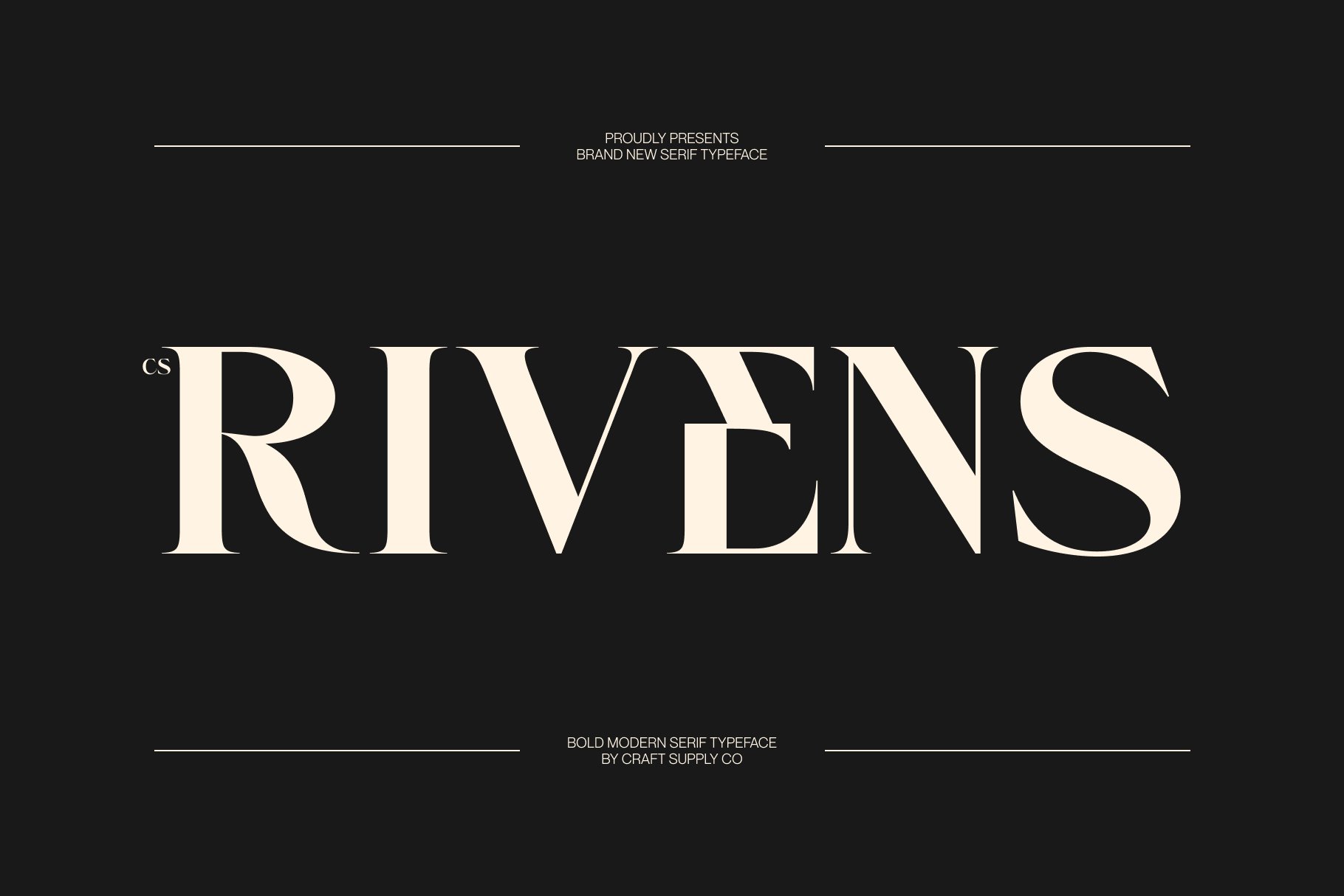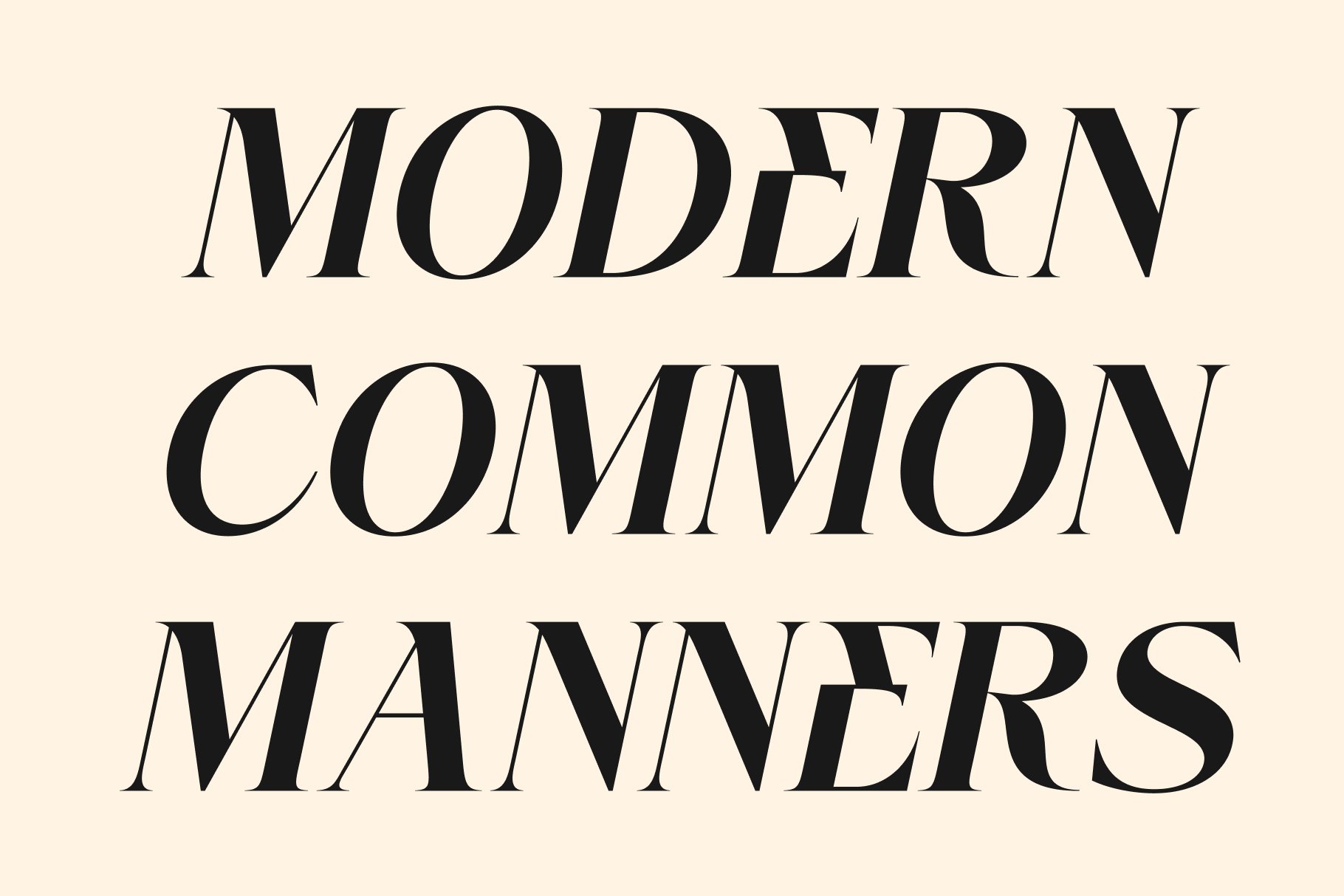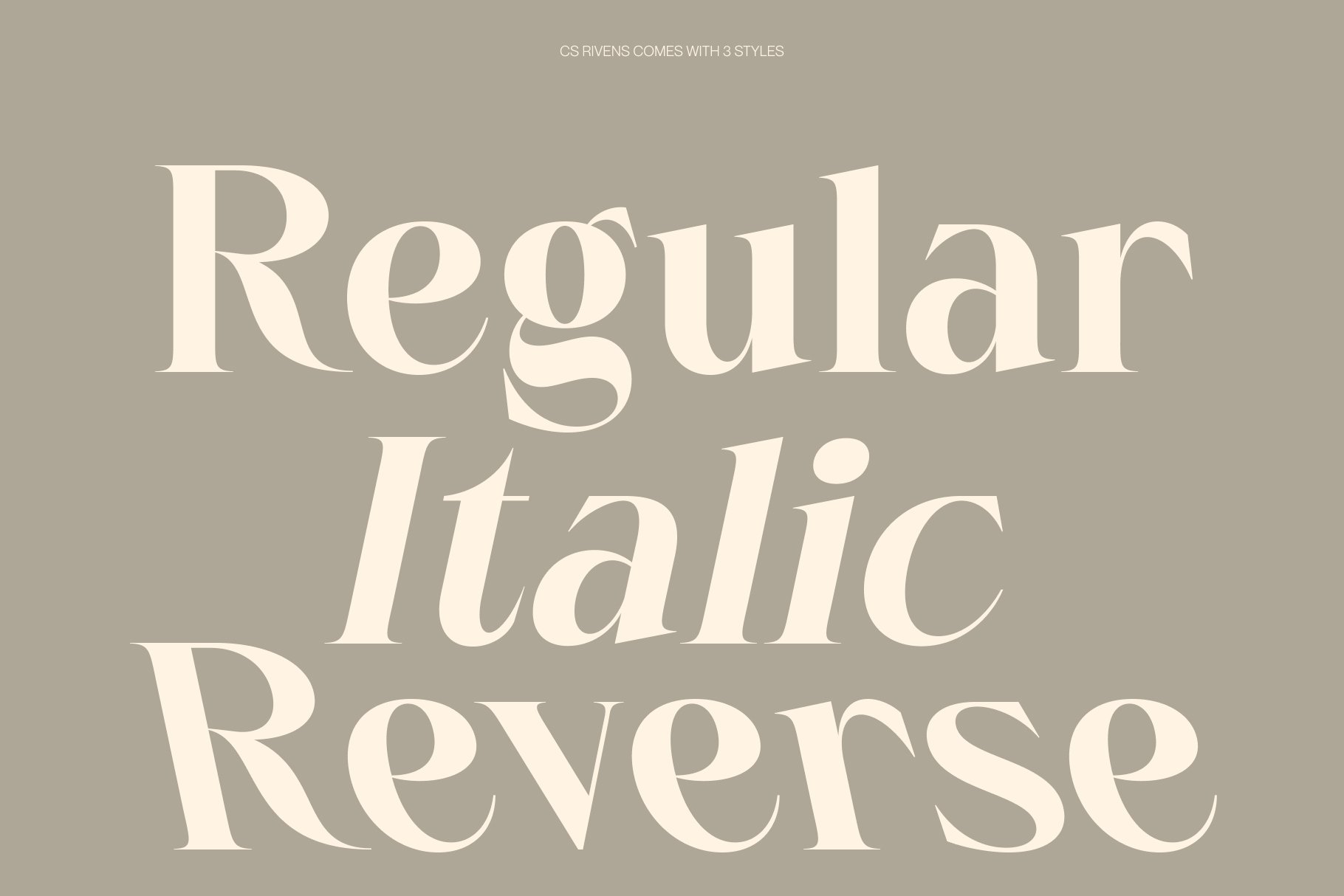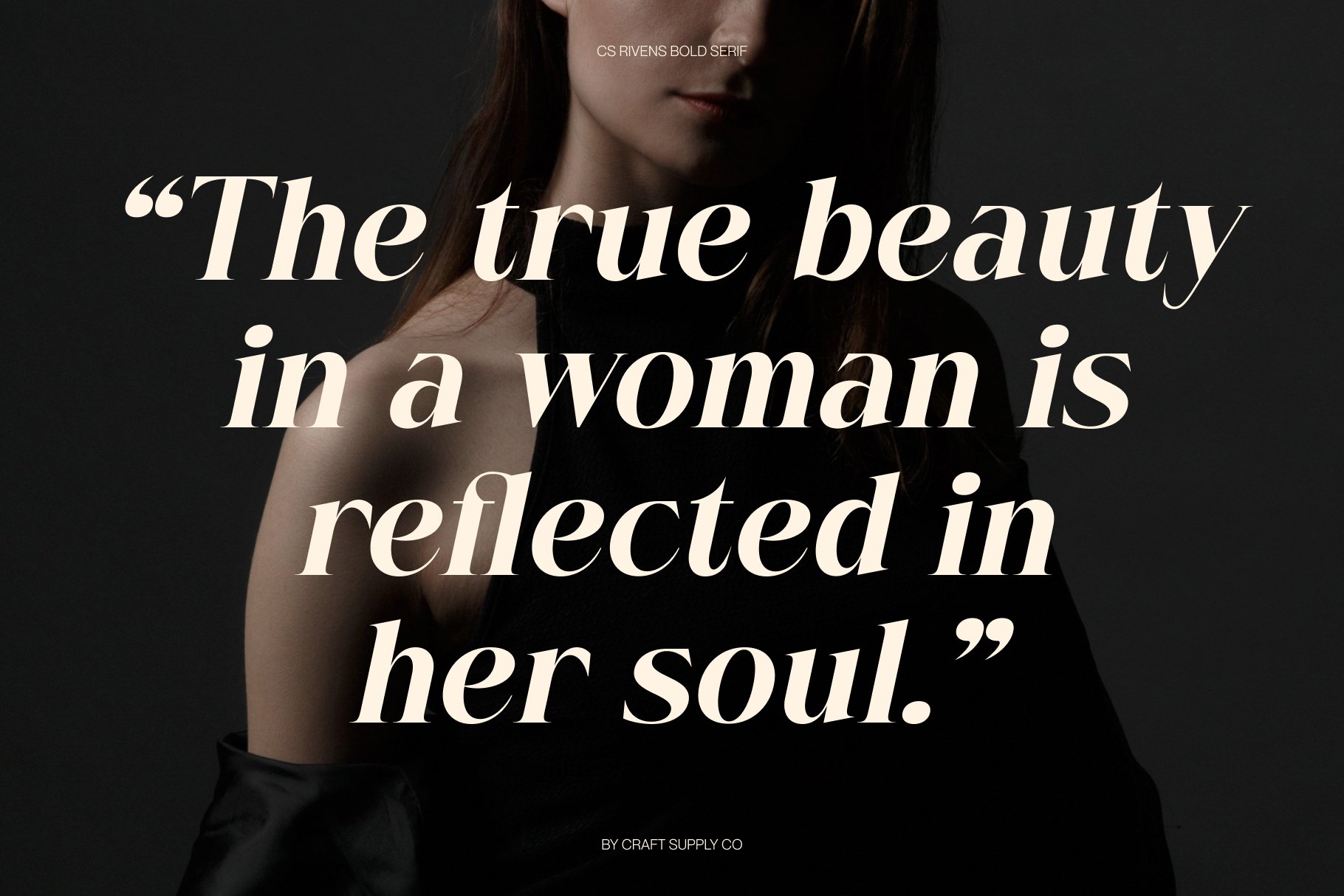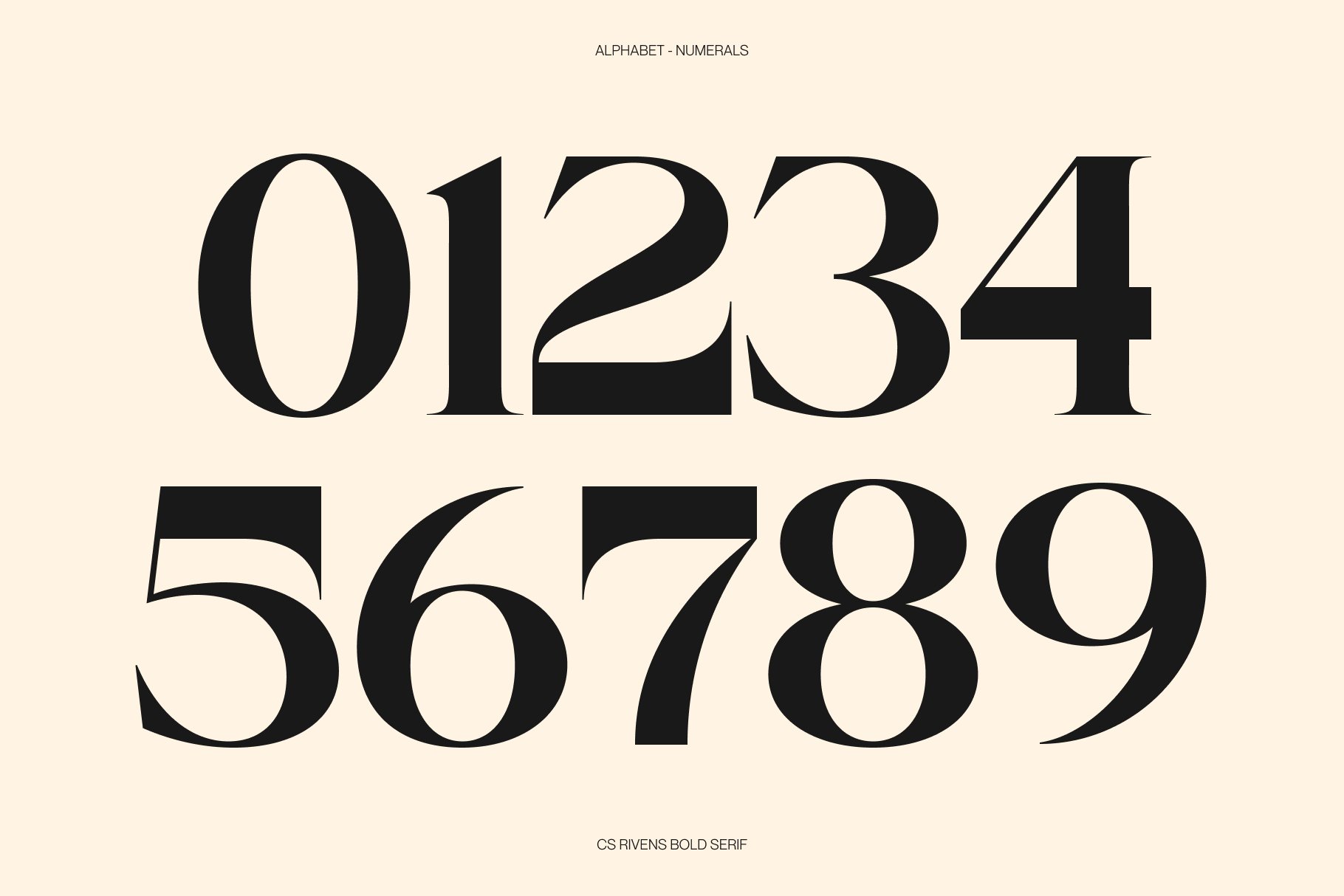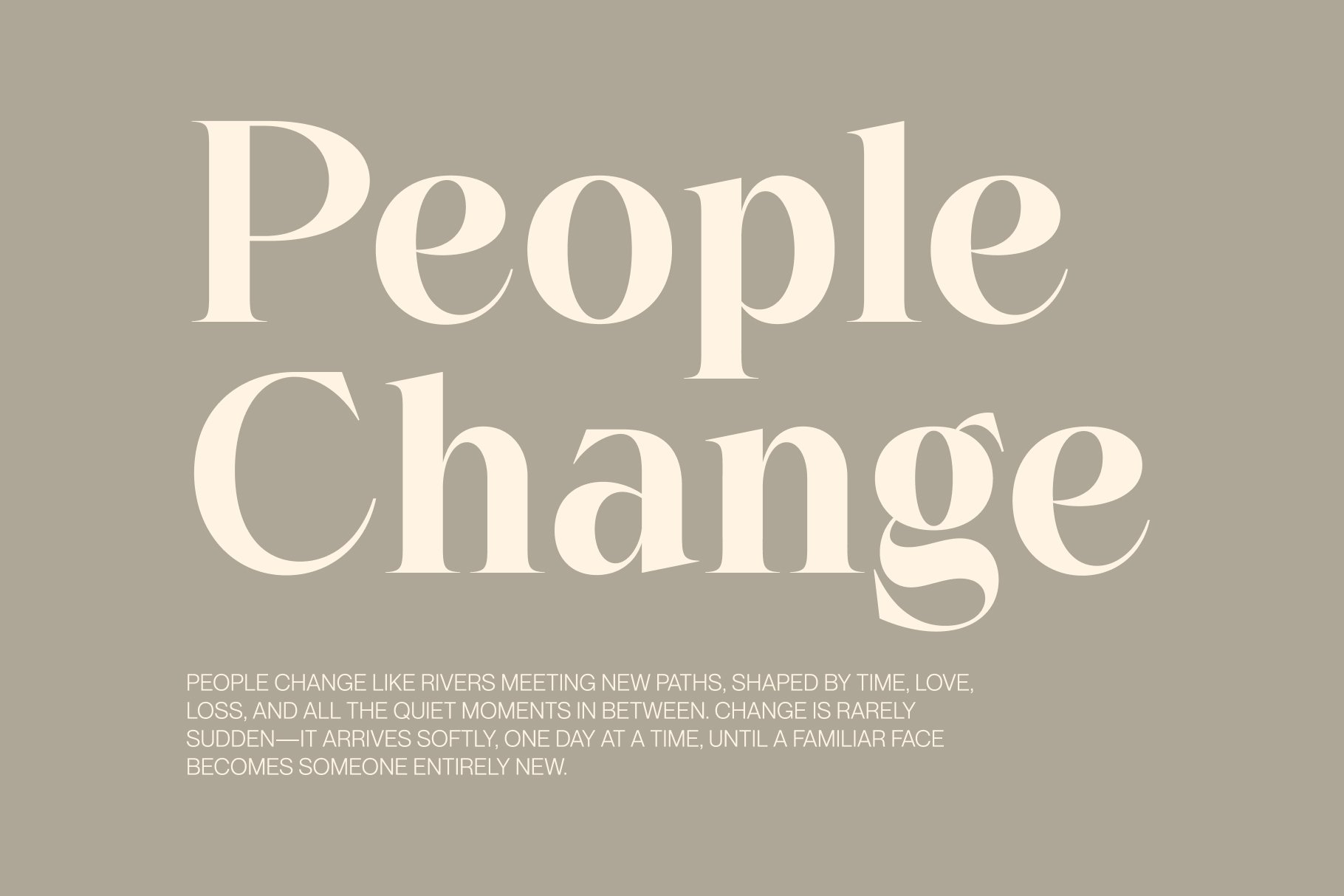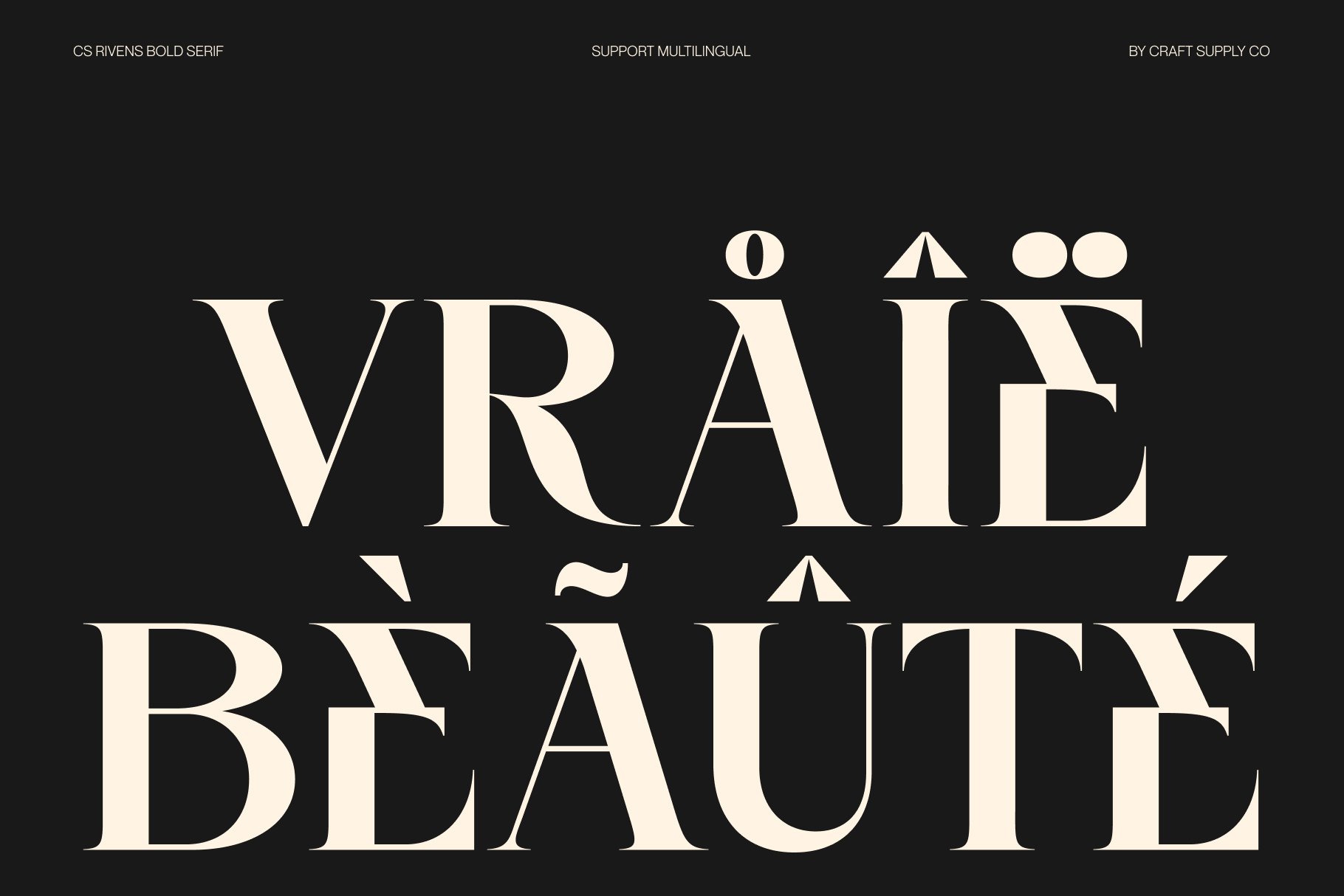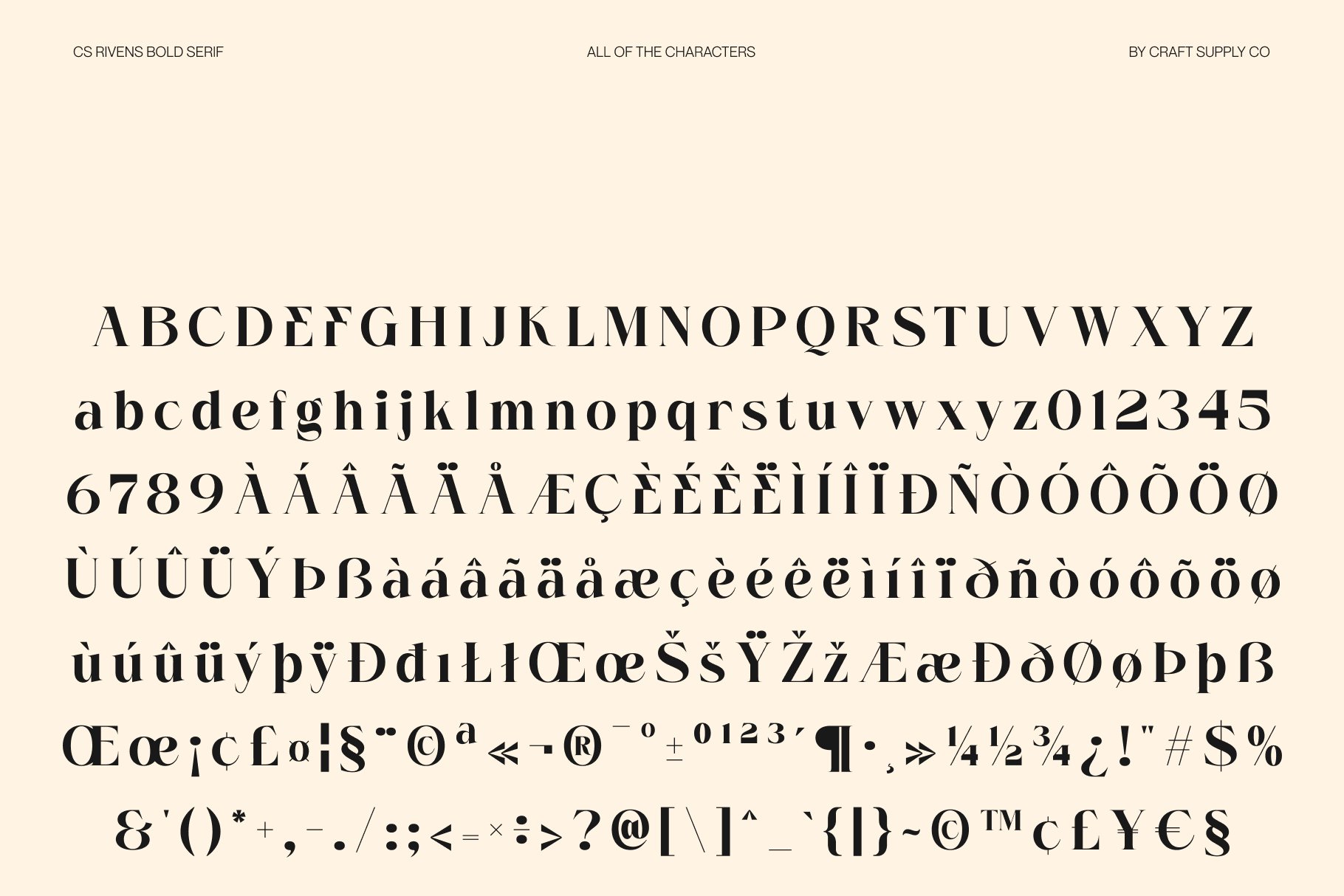
This is a modern bold serif engineered for high-impact visual communication. Defined by its strong vertical structures and sharp, elegant contrast lines, the typeface balances raw power with refined sophistication. Its commanding silhouette ensures that every word carries weight, delivering an authoritative presence that demands immediate attention.
The visual architecture of this font relies on a deliberate tension between thick stems and razor-thin strokes. This extreme contrast creates a rhythmic elegance, making it an ideal choice for designers seeking a luxury aesthetic that feels both contemporary and timeless.
In practical application, this font excels in environments where prestige is paramount. It is perfectly suited for striking magazine titles and luxury fashion branding, where a bold typographic voice is required to anchor the visual identity.
Beyond editorial use, this typeface brings a premium feel to high-end packaging design. Whether embossed on a boutique box or printed on a luxury label, this font transforms standard text into a design element.